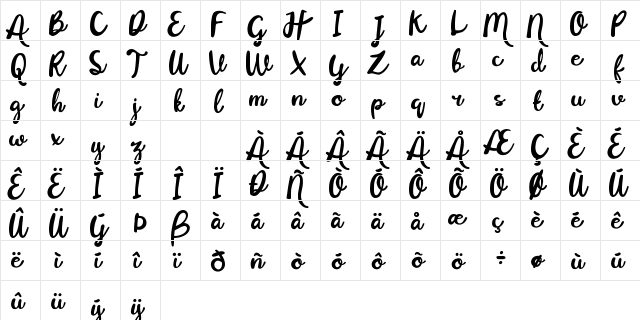
Mimitee Demo Regular
| Foundry | Ruang Kerja Co. |
| Designer | Rudy Muhardika |
Design Context for Mimitee Demo Typeface
Mimitee Demo is a composed and adaptable typeface that performs quietly and consistently across a wide range of design contexts.